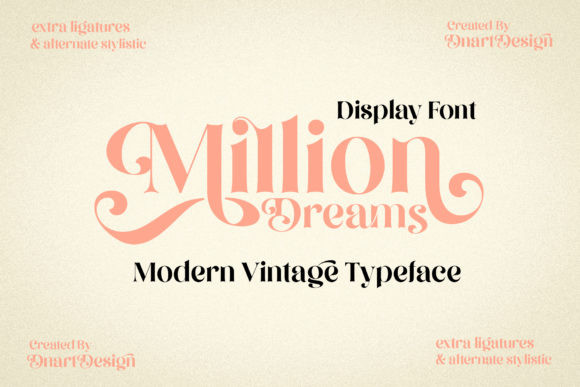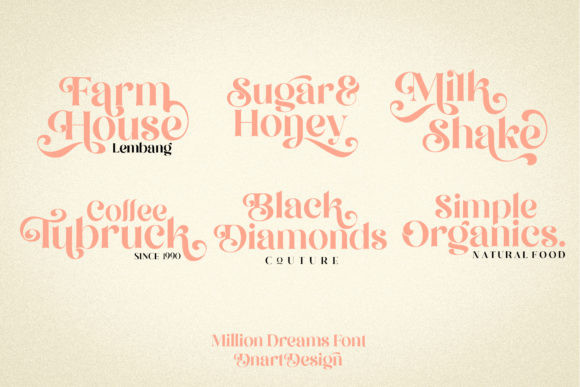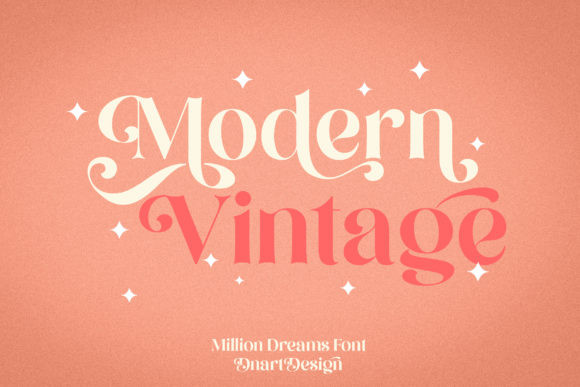
Million Dreams Font
Million Dreams is an elegant and bold display font. Fall in love with its incredibly versatile style and use it to create gorgeous wedding invitations, beautiful stationary art, eye-catching social media posts, and much more!